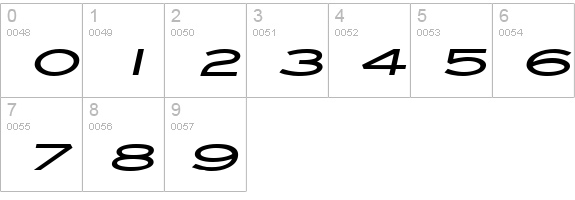
Eye glass Extended Bold Italic Font Details
Eye glass Extended Bold Italic is a strong, high-contrast, extended-width, italic variant in the Eye typeface family \xE2\x80\x94 well suited to headlines, attention-grabbing titles, and strong calls-to-action.
Eye glass Extended Bold Italic is a stylish and modern font that exudes confidence and sophistication. Its sleek design and bold italic styling make it perfect for adding a touch of elegance to any project. The sharp angles and clean lines of this font give it a contemporary feel that is sure to impress. Whether you're creating a logo, designing a website, or crafting a print advertisement, Eye glass Extended Bold Italic will make your text stand out and command attention. And the best part? Eye glass Extended Bold Italic is available for free download at FontsMarket.com. This means you can easily access this premium font without any cost, making it a valuable addition to your font collection. Don't miss out on the opportunity to elevate your designs with the stunning Eye glass Extended Bold Italic font today!